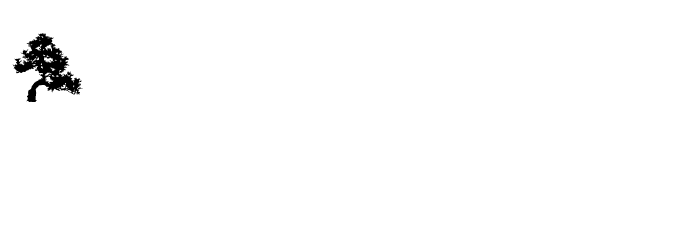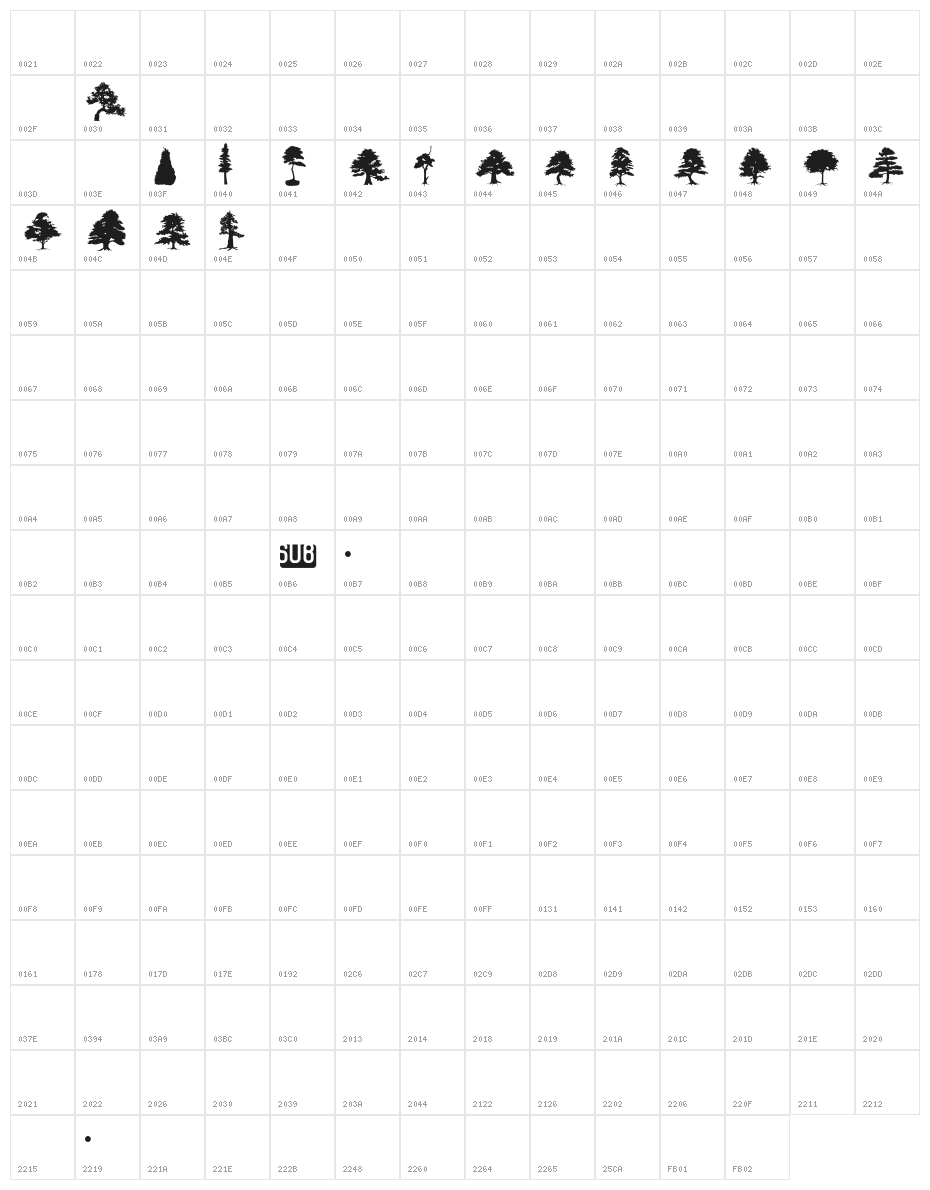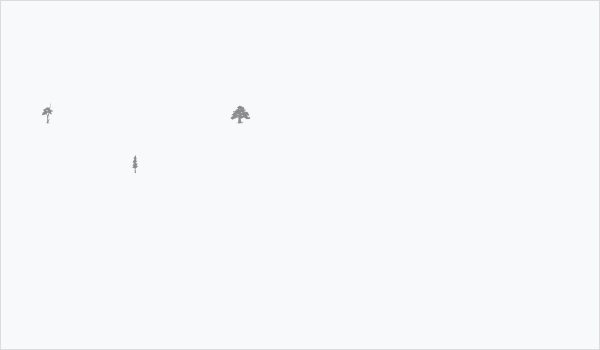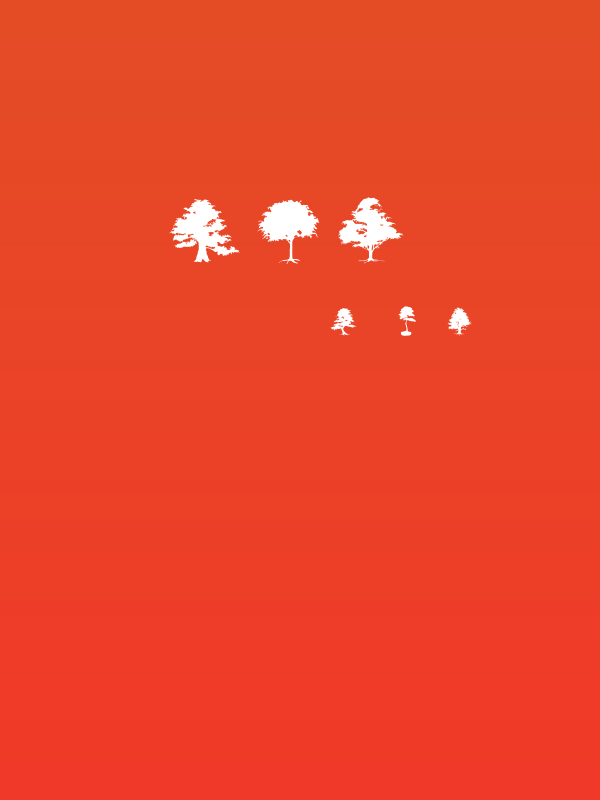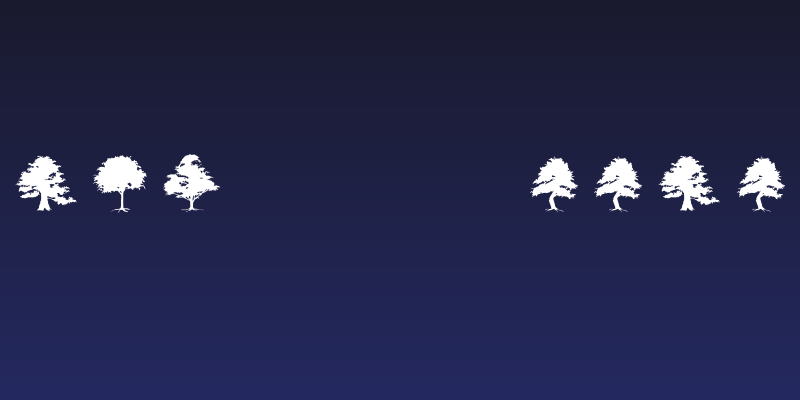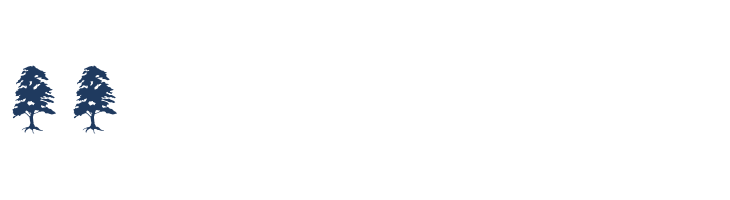
SubiktoTreebeta Font
SubiktoTreebeta Description
A decorative font composed of detailed tree silhouettes representing each character, with unique tree shapes for every letter and symbol. The design is organic and highly illustrative, with each glyph resembling a different species or style of tree.
| Overall Style | Decorative, Organic, Nature-inspired |
| Use Case | Logos, Headlines, Posters, Themed graphics |
| Proposed Projects | Nature-themed posters, environmental branding, eco-friendly packaging, educational materials, childrenΓ’β¬β’s books, event invitations. |